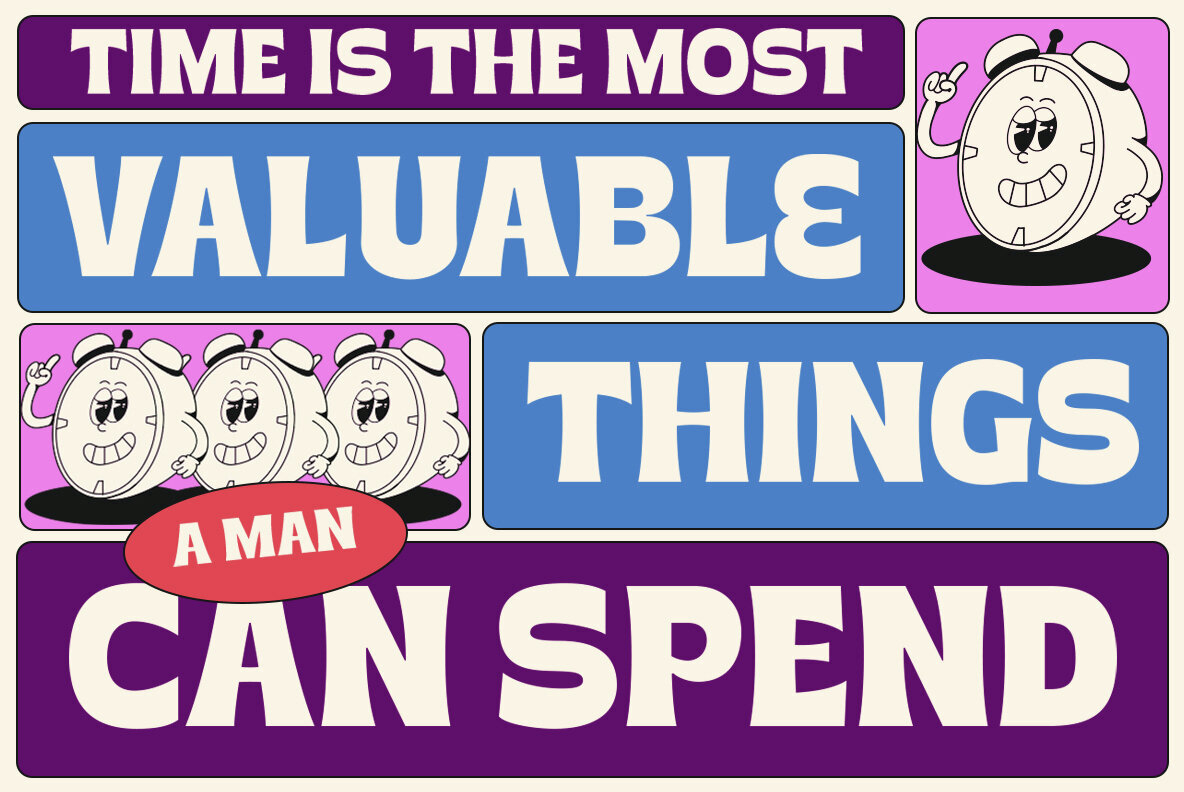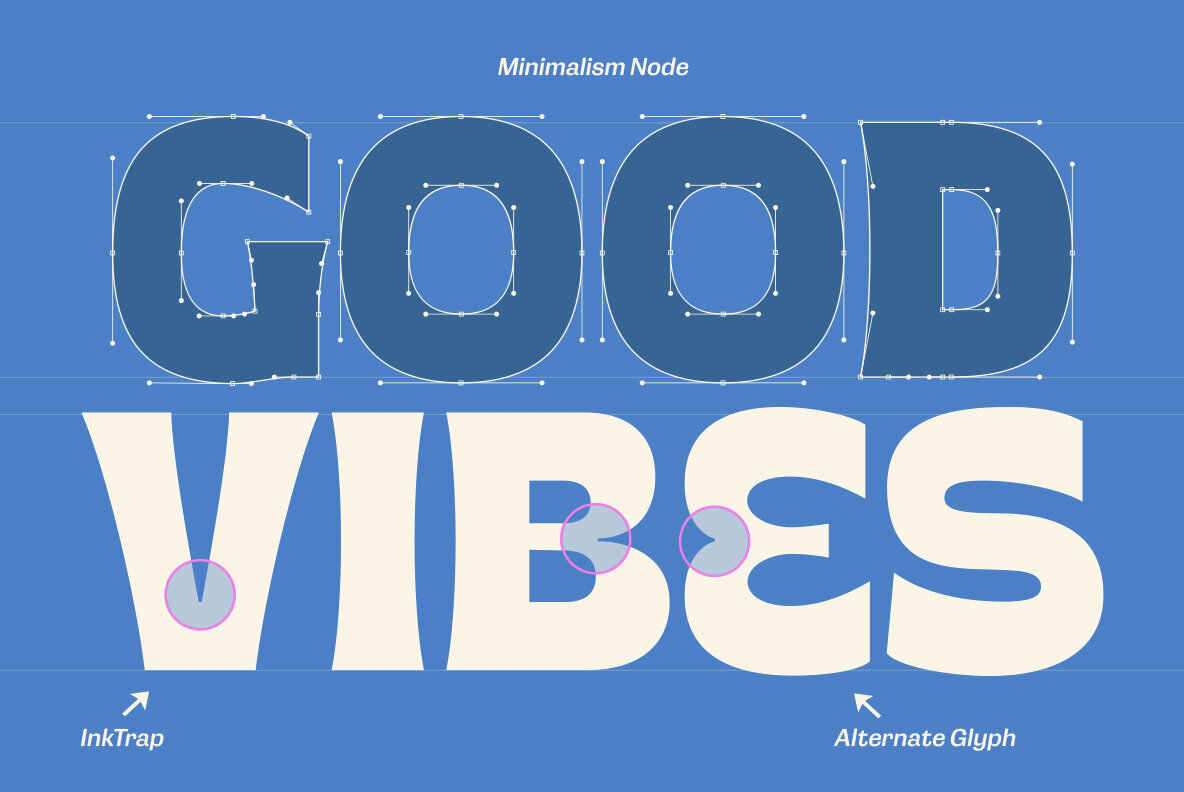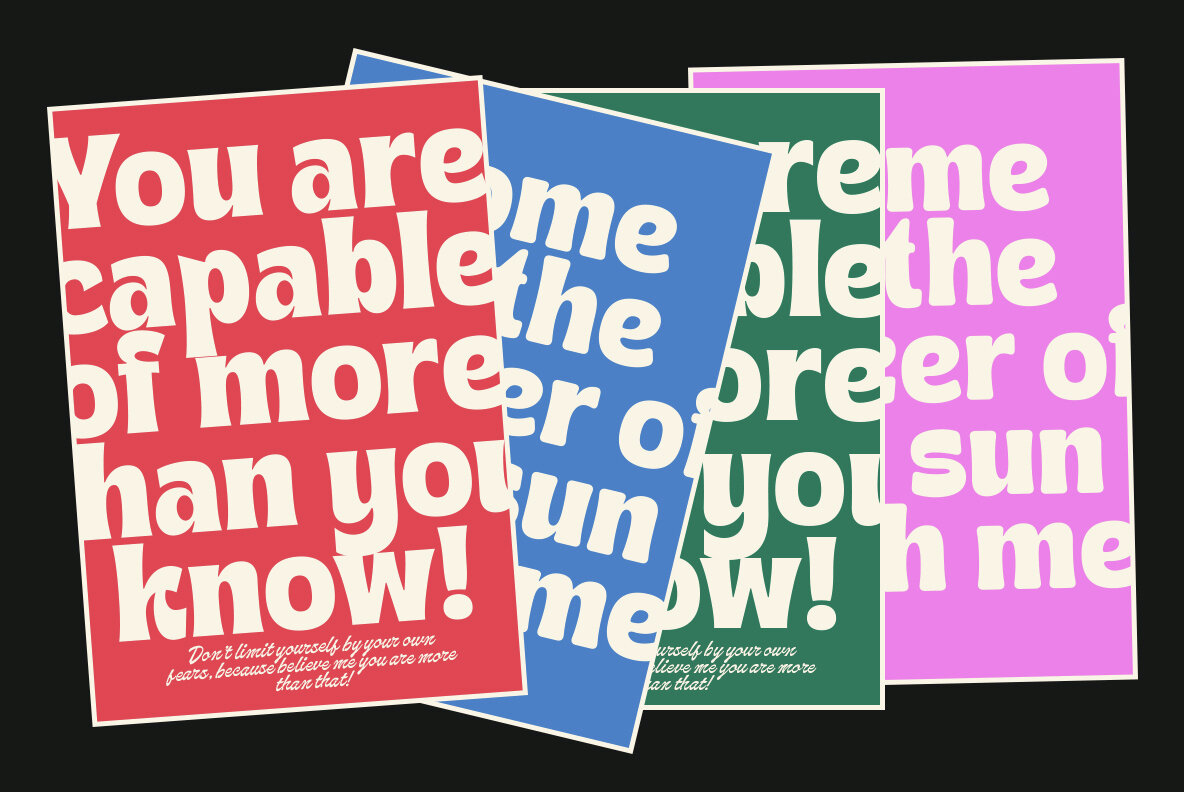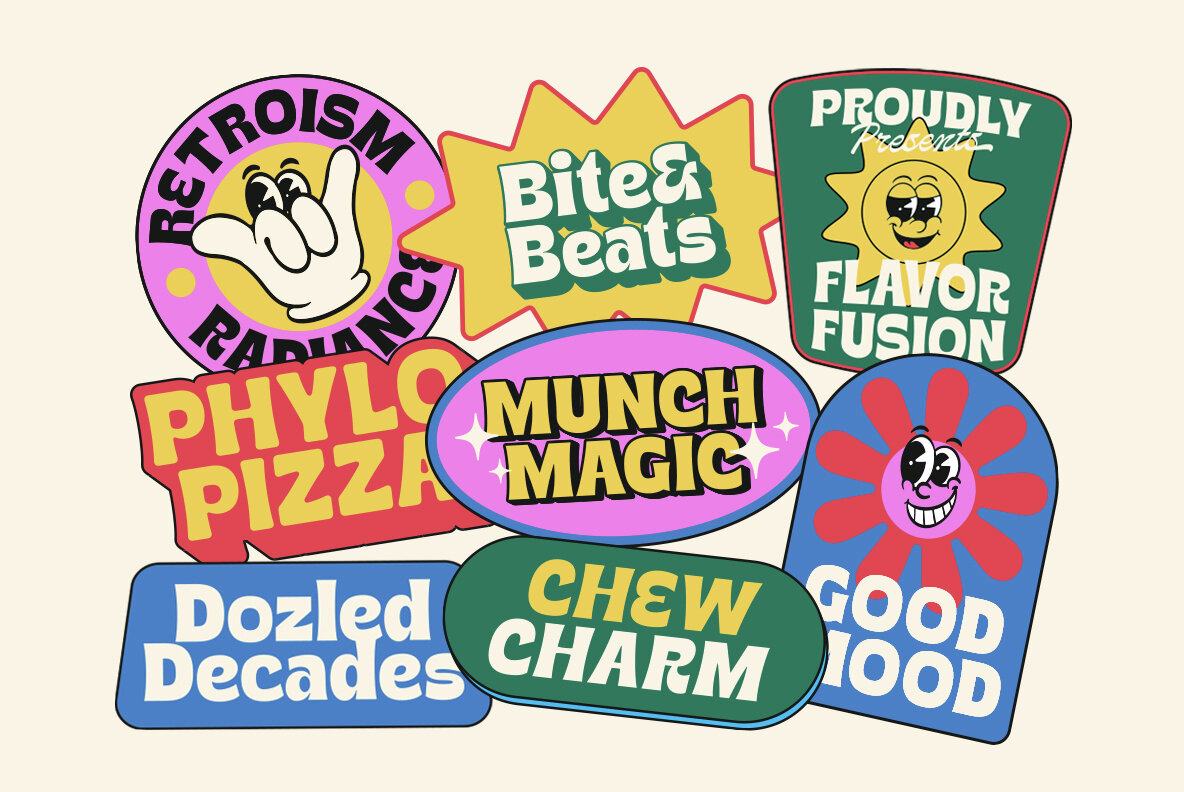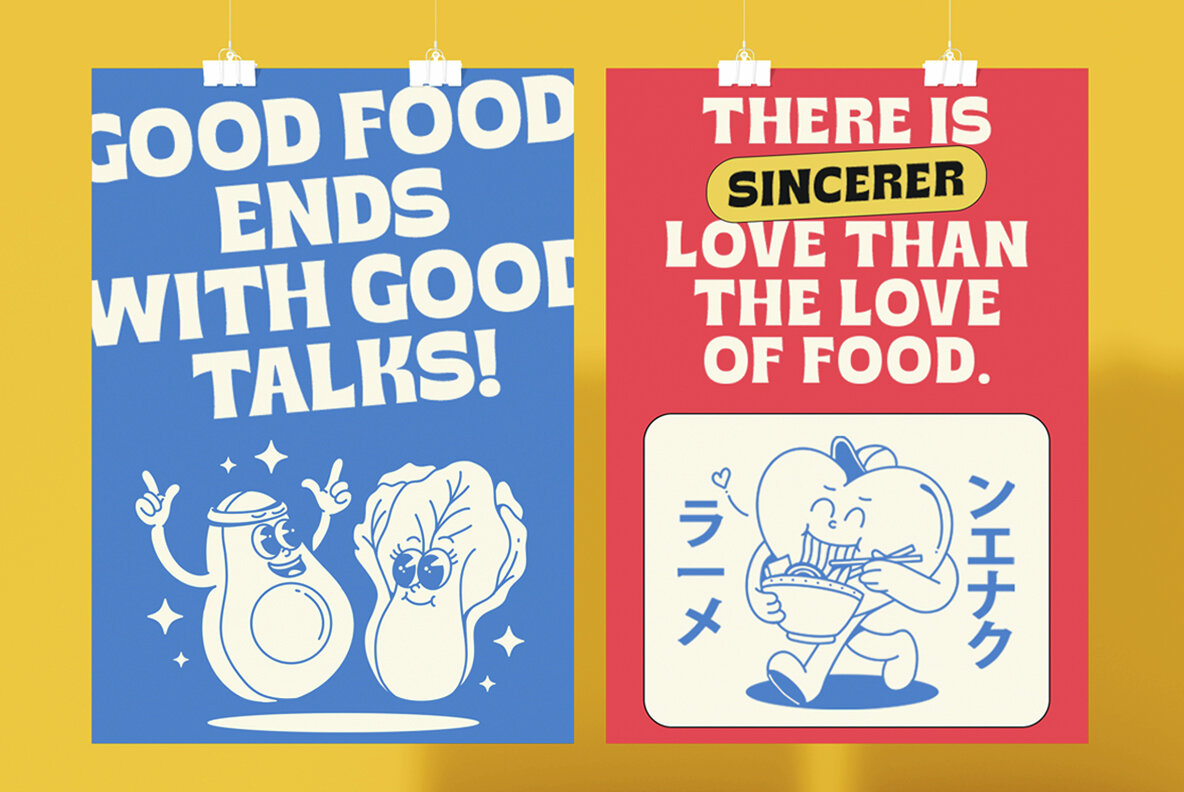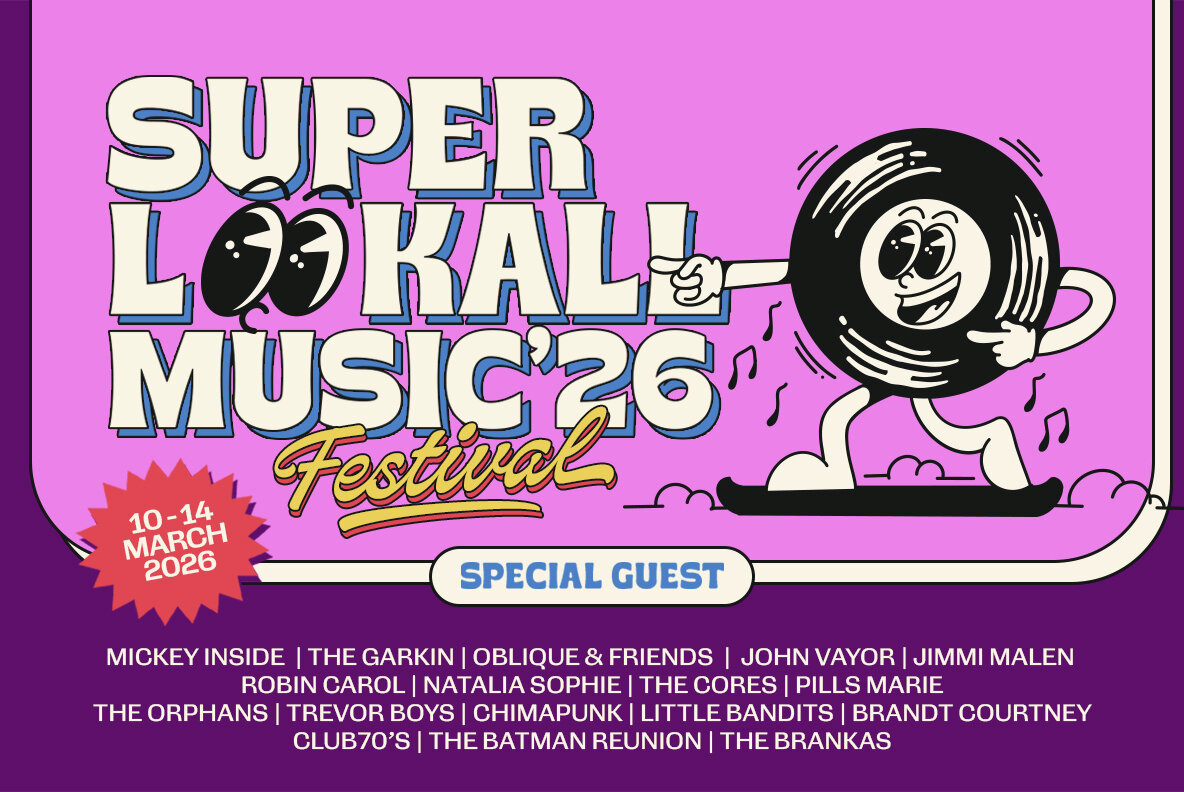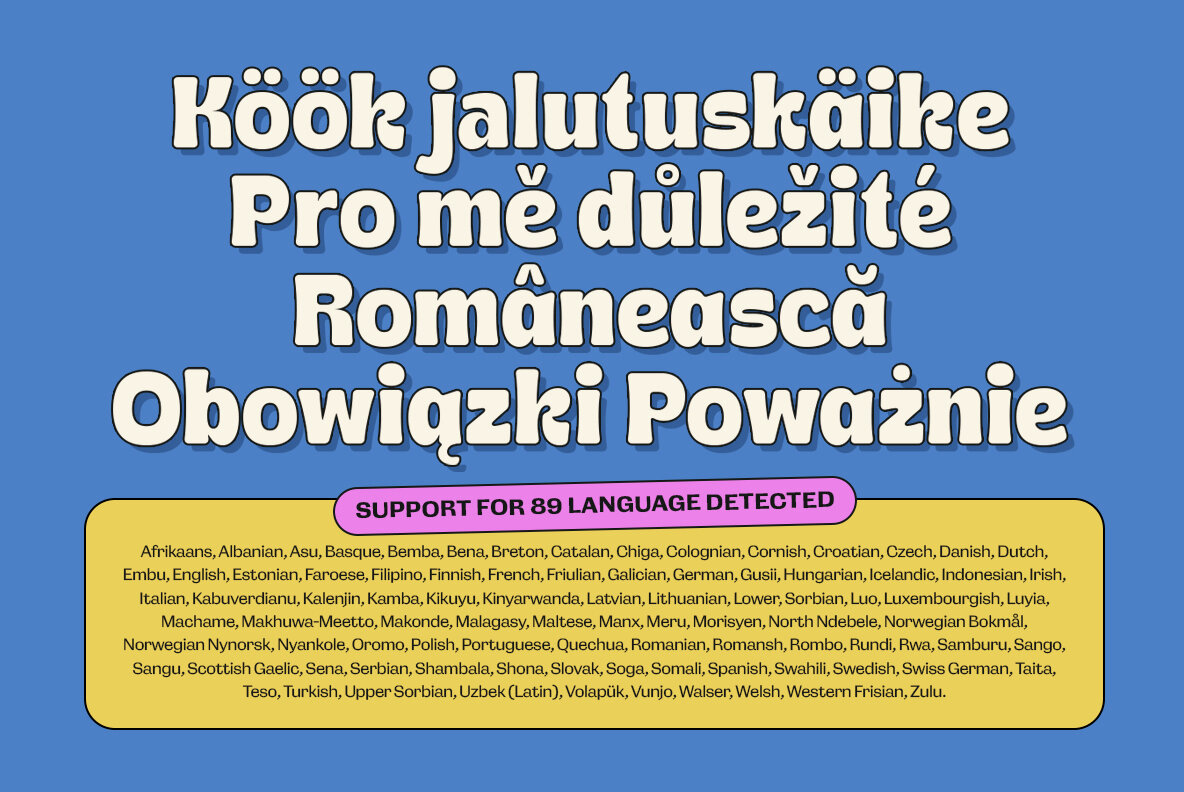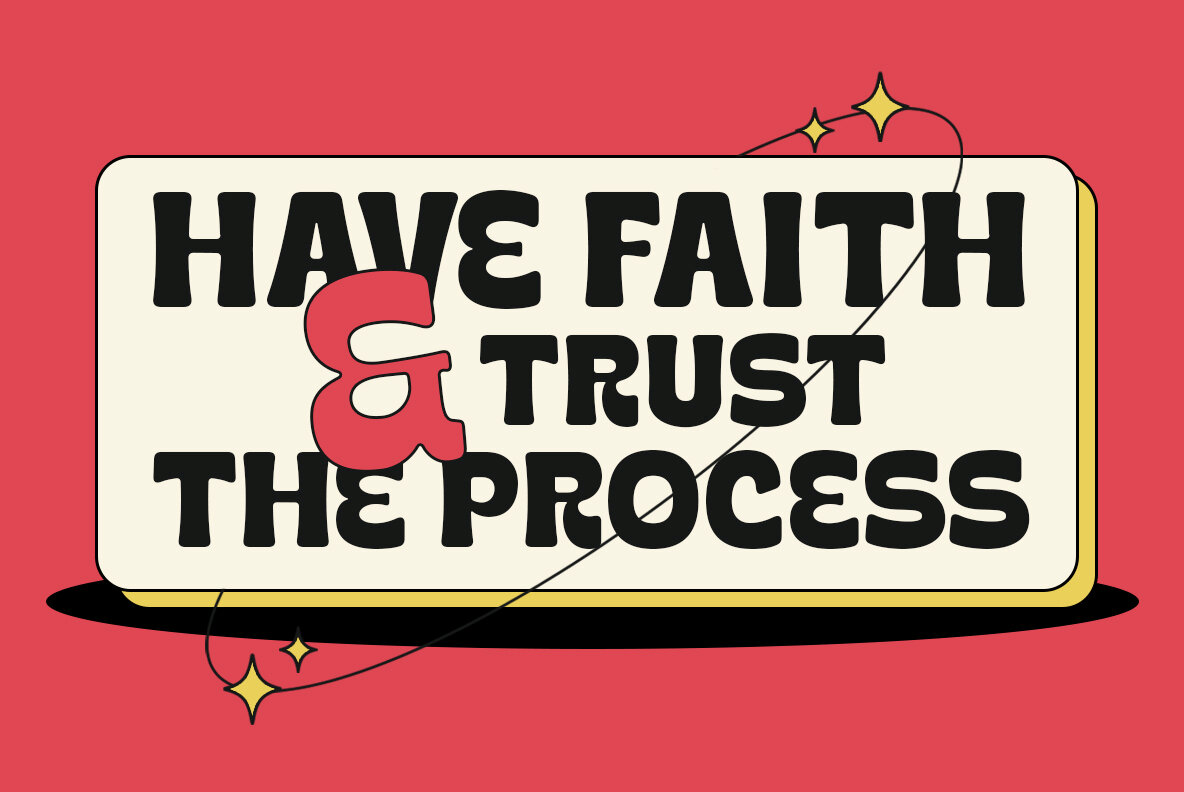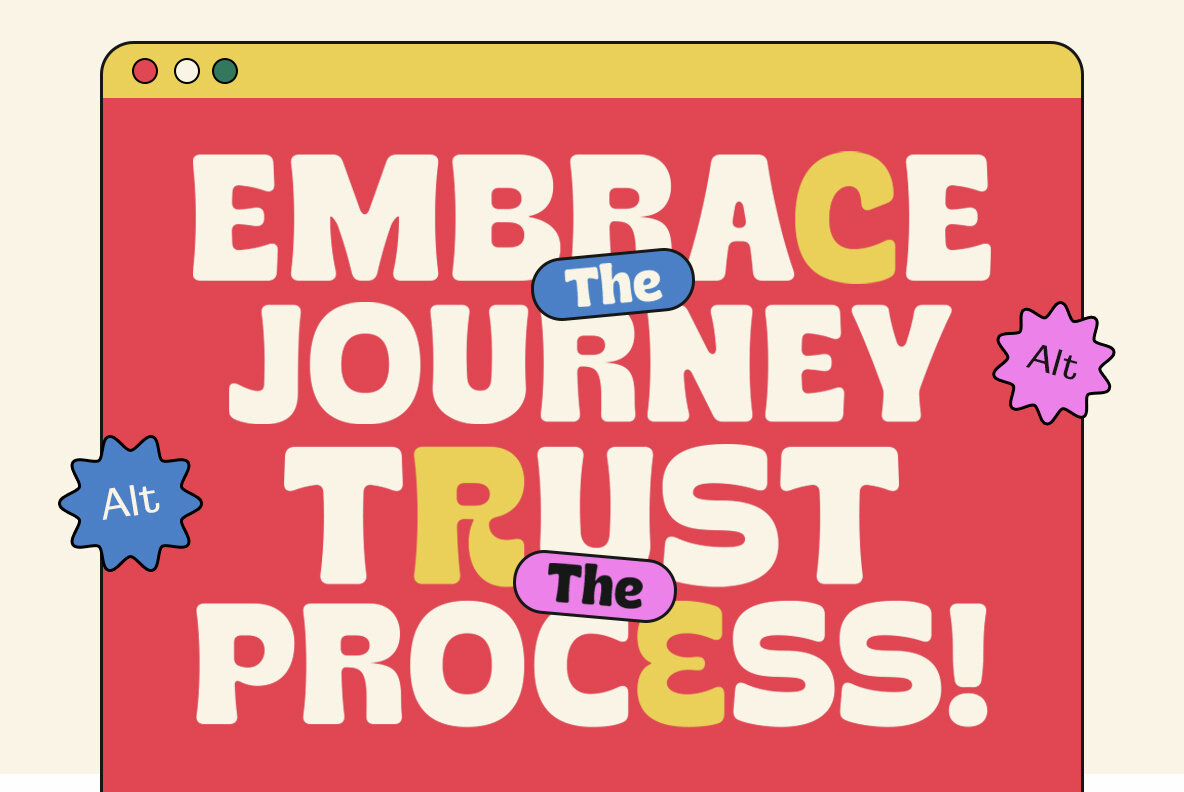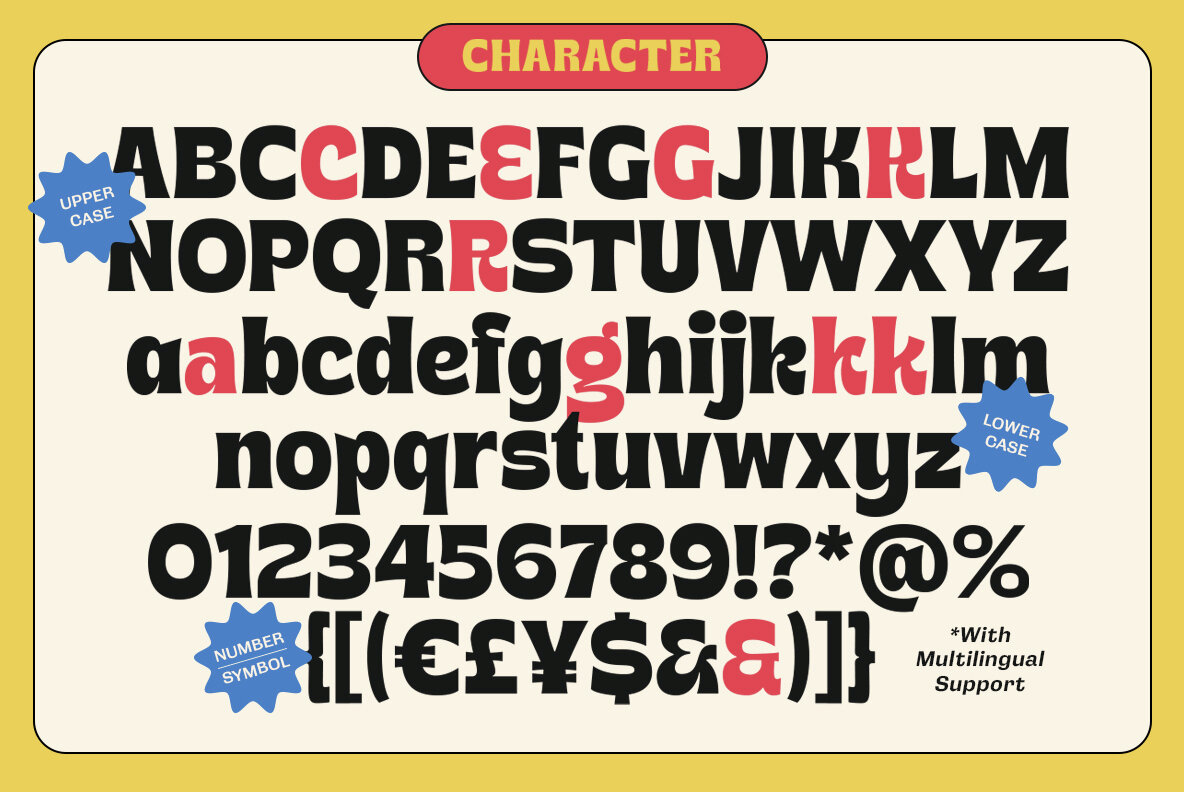
Regkin Font
Regkin Regular
Regkin Rounded
This font is a bold, contemporary sans-serif with geometric proportions, offering a strong visual impact suitable for headlines and display purposes. Its clean, unadorned lines and minimalist approach make it highly readable, while providing an urban, fashionable look perfect for modern design aesthetics.